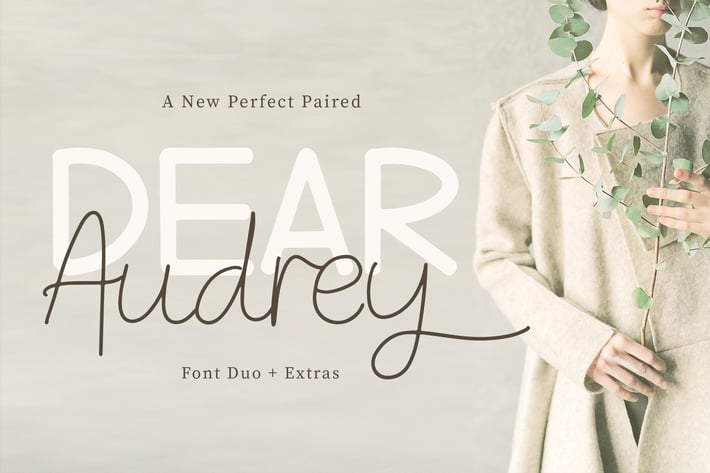
Dear Audrey - Font Duo
Meet Dear Audrey, a beautifully paired font duo designed to bring a perfect blend of sophistication and charm to your creative projects. Combining a clean, modern sans serif with an elegant handwritten script, Dear Audrey embodies timeless grace with a contemporary edge. It’s the ideal pairing for those who love to balance simplicity and artistry in their typography.
About the Font
Dear Audrey is a font duo featuring two distinct yet complementary styles: Regular and Script, that work harmoniously together or shine independently. Inspired by refined elegance and modern minimalism, this font duo gives you the flexibility to create designs that feel both polished and personable. Whether you’re designing a brand identity, social media post, or invitation suite, Dear Audrey brings warmth and sophistication to every composition.
Each style is thoughtfully crafted to create seamless combinations. The clean sans serif offers structure and readability, while the flowing script introduces emotion and character. Together, they form a perfect visual harmony that captures attention effortlessly.
Font Variants
+ Dear Audrey Regular: A clean, all-caps sans serif font with smooth curves and a friendly tone. It’s ideal for logos, packaging, titles, and layouts that require balance and clarity. Its simplicity enhances professionalism, making it a great choice for beauty, lifestyle, and editorial projects.
+ Dear Audrey Script: A graceful handwritten typeface with natural rhythm and fluid strokes. Designed to complement the regular version, it adds a personal, feminine touch. Perfect for taglines, signatures, and creative design accents.
The contrast between the modern sans serif and the delicate handwritten script gives designers endless creative possibilities. Use them together to achieve a dynamic typographic pairing or separately for distinctive, elegant statements.
Suitable Uses
Dear Audrey is a versatile font duo suitable for a wide range of projects that require a touch of elegance and modernity. Here are some ways you can use it:
+ Brand Identity & Logo Design: Build a clean and timeless brand look by pairing the bold sans with the delicate script for subtext or taglines.
+ Editorial & Magazine Layouts: Combine structure and style for titles, headers, and pull quotes that stand out beautifully.
+ Wedding & Event Invitations: Add romantic charm and sophistication with the soft flow of the handwritten script.
+ Product Packaging & Labels: Perfect for cosmetics, fashion, and handmade goods that require a high-end aesthetic.
+ Social Media & Blog Graphics: Create chic, cohesive visuals for Instagram, Pinterest, and other platforms.
+ Posters, Cards, and Stationery: Elevate every print design with an elegant and professional finish.
Whether you’re designing for a brand or personal project, Dear Audrey adapts effortlessly, always striking the perfect balance between modernity and grace.
Why Choose Dear Audrey?
The true beauty of Dear Audrey lies in its duality. It’s structured yet expressive, clean yet warm, and minimal yet full of character. This perfect pairing of styles makes it an essential font duo for designers who value versatility and aesthetic consistency.